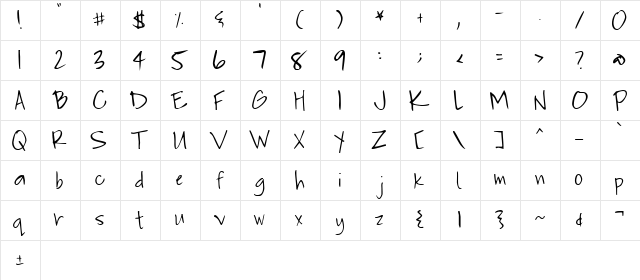
2Peas Simple Regular
Design Context for 2Peas Simple Typeface
2Peas Simple takes a measured approach to typography — its balanced proportions and neutral character make it a reliable workhorse for both digital and print work.